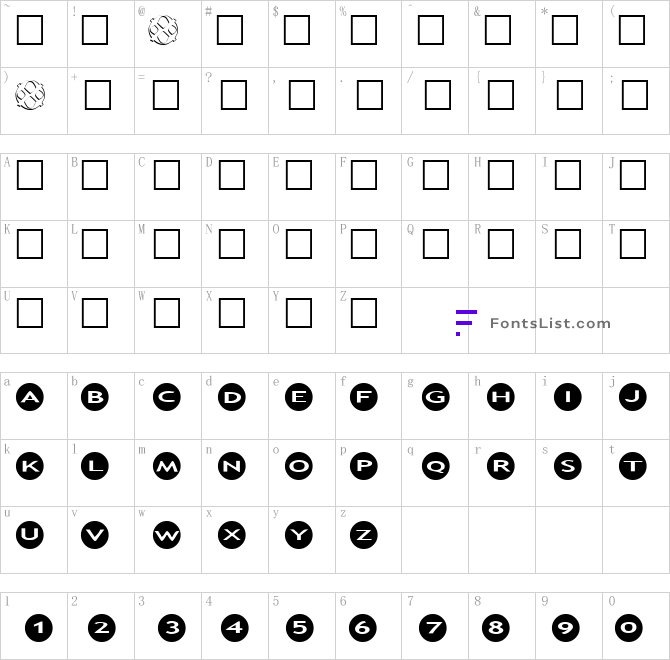
- Font Name:AlphaShapes circles
AlphaShapes-circles.ttf is a very beautiful artistic font, AlphaShapes-circles.ttf is widely used in the design and printing of various books and pictures,AlphaShapes-circles.ttf has a strong visual impact,AlphaShapes-circles.ttf is a commonly used font in newspapers, magazines and books, and is used in posters, e-commerce Poster design, store design, logo design, font design and other fields.AlphaShapes-circles.